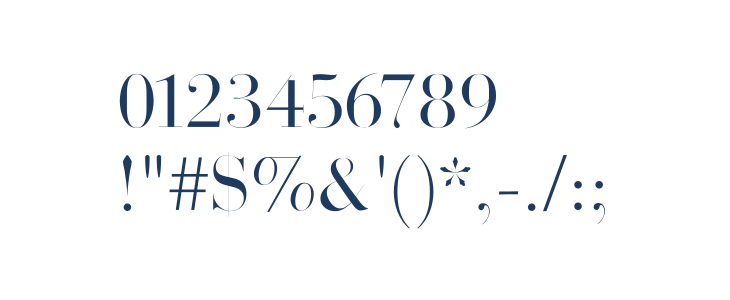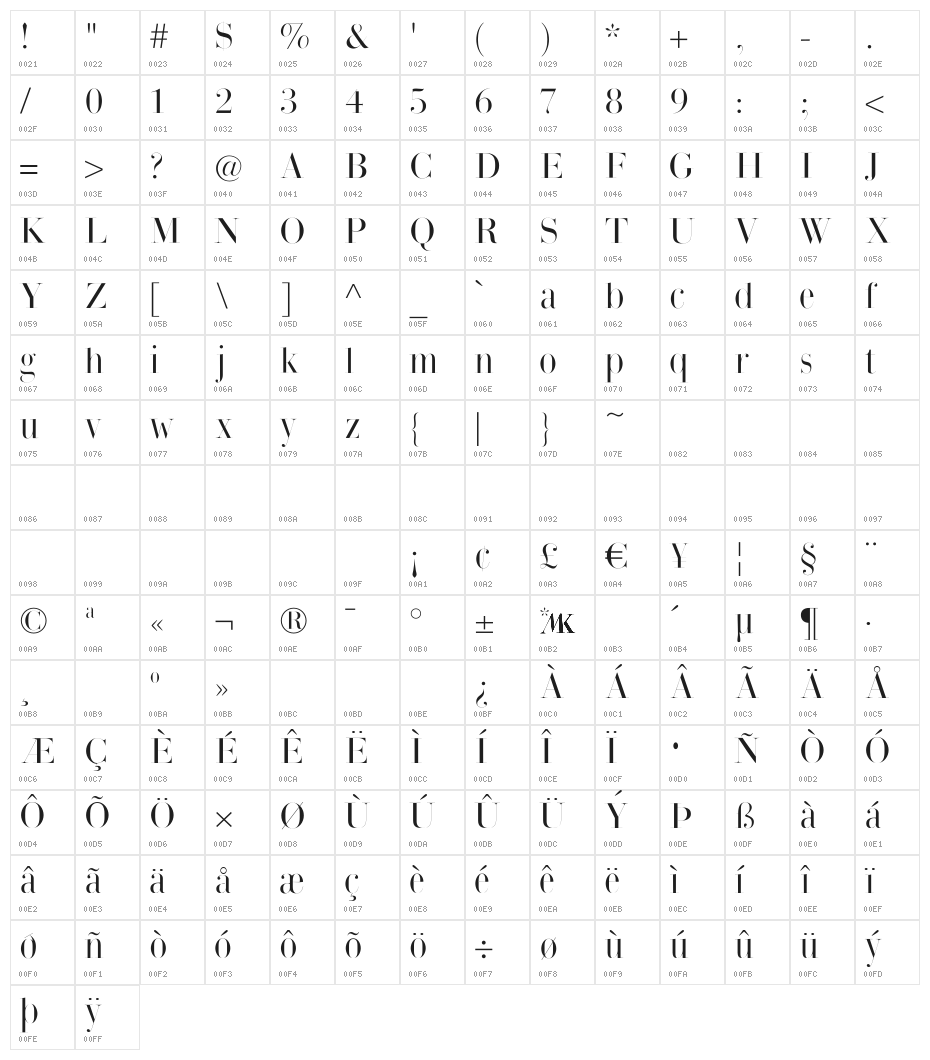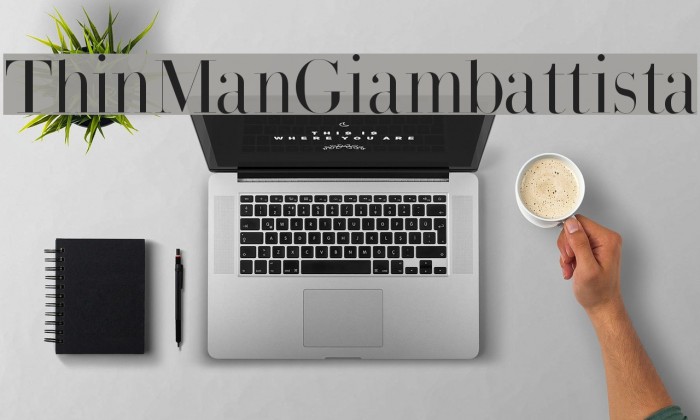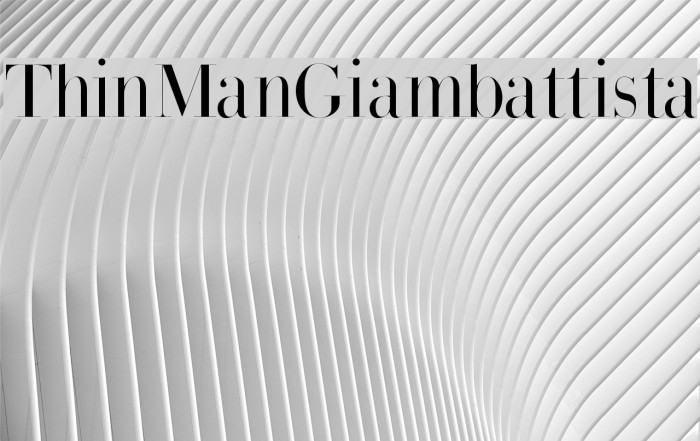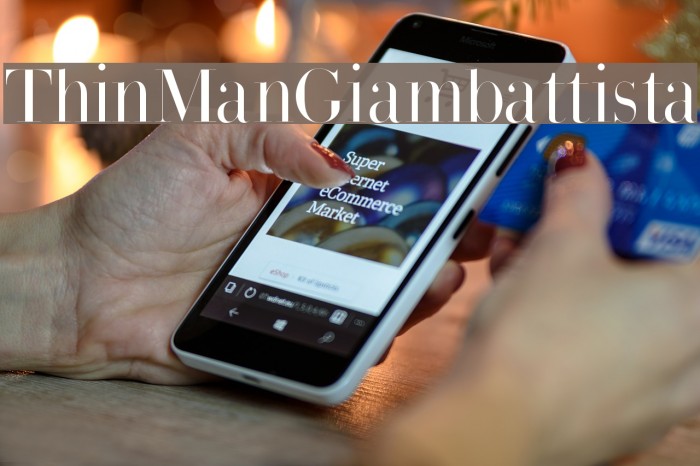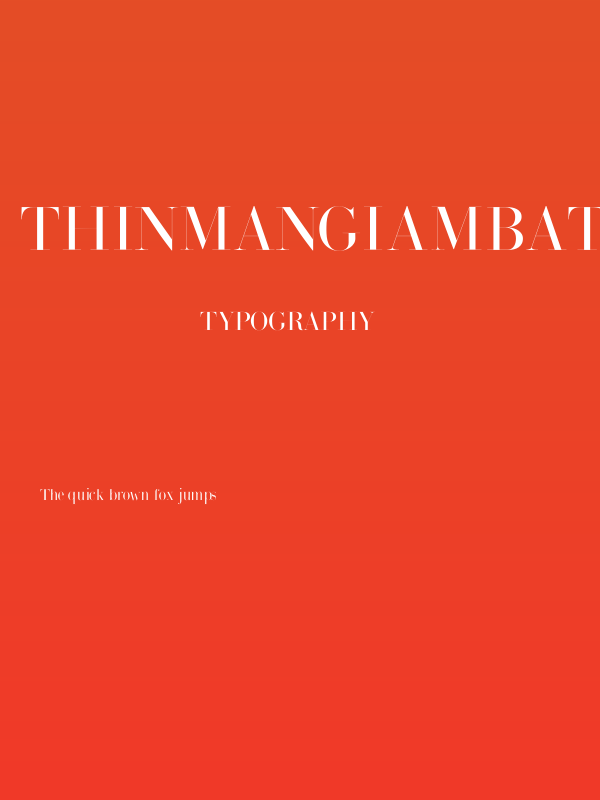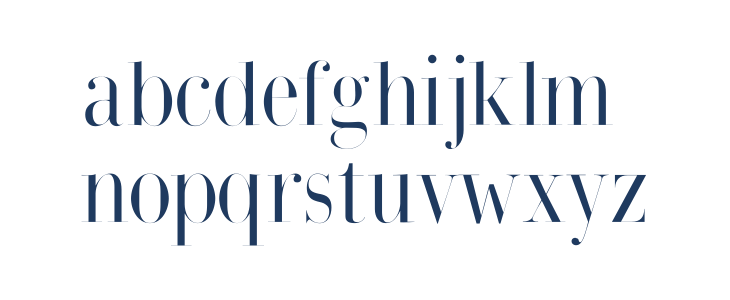
ThinManGiambattista Font
ThinManGiambattista Description
This elegant serif typeface features high contrast between thick and thin strokes, giving it a sophisticated and refined appearance. The uppercase letters are tall and stately, while the lowercase letters maintain a graceful flow with delicate curves. The numerals are designed with a classic touch, complementing the overall aesthetic. Special characters are crafted with attention to detail, enhancing the font's versatility. This typeface is ideal for projects that require a touch of elegance and tradition.
| Proposed Projects | Ideal for luxury branding, editorial design, wedding invitations, and high-end product packaging. |